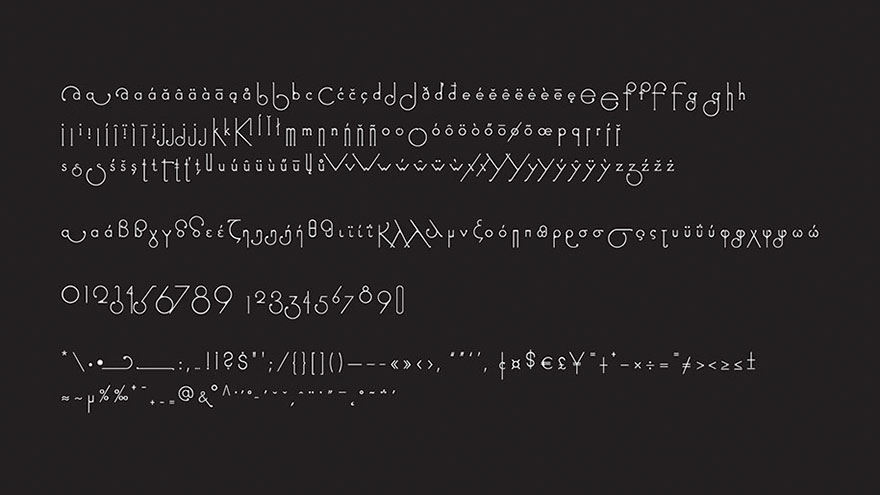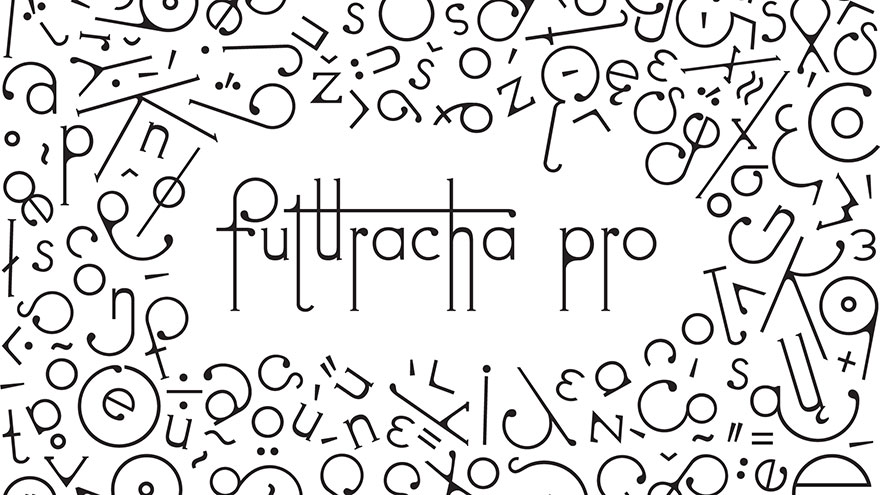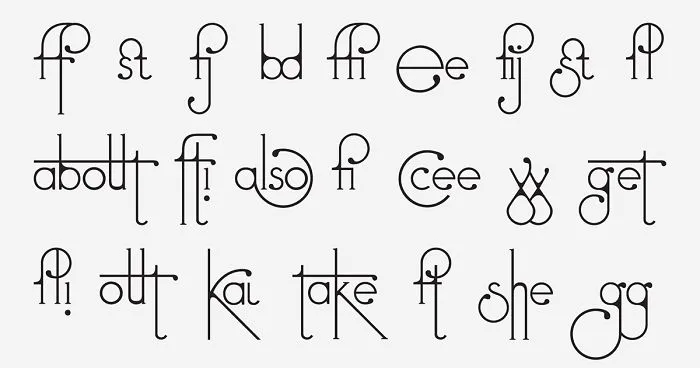
This is Futuracha Pro, a unique set of whimsical, weaving characters that change shape and interact as they form different words, and it’s almost ready for keyboards everywhere.
Høly, a team of designers based in Greece, launched Futuracha 5 years ago as an experimental font. The quirky letters came in raw form, and had to be arranged manually. Due to explosive popularity, Høly began designing Futuracha Pro, an Open Type version of the file that could be typed normally from any keyboard, featuring intelligent characters that change shape according to the letter sequence of a given word.
Futuracha Pro basically makes any word look like an Art-Deco masterpiece, and it’s slated to be complete in May. Høly’s Indiegogo campaign to crowdfund the font’s development was a smashing success, raising over 15 times their original goal of $4000. Backers, depending on their pledge, will receive a personal or commercial licence to use the font, as well as mesmerizing merch.
These magical letters change shape as they form different words, intuitively interacting to create magical text
They belong to Futuracha Pro, a whimsical new font by Greek design team Høly that is almost ready for keyboard use
The font features unique ‘weaving’ characters, and can accommodate many languages, including the team’s native Greek
The development of the font was crowdfunded by an Indiegogo campaign, which raised over 15 times its original goal of $4000
Futuracha Pro will be available in keyboard-friendly format by May 2017, and already has thousands of licence holders
Hello guys! Glad to see futuracha on bored panda. I'm foivos from høly. Futuracha is quite decorative so suitable for display, limited extent text, logotypes, tattoos, decorations etc. You can find out more on the campaign that ends soon.
seems not that practical to me but could be used for single words or short messages on some hipster photos